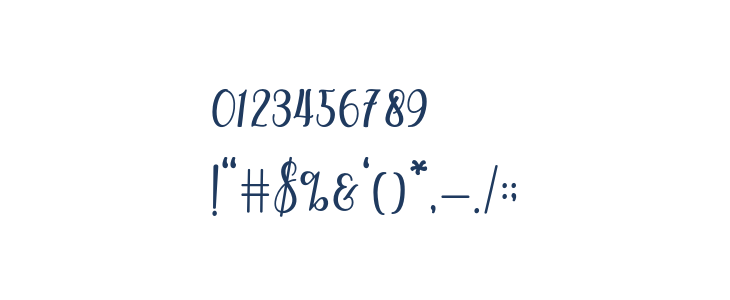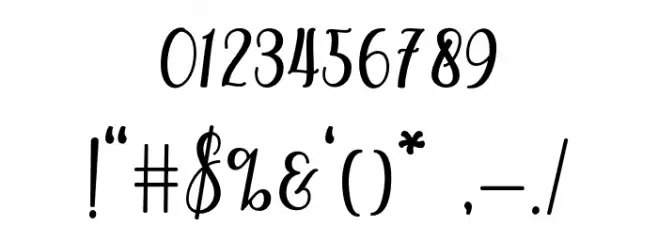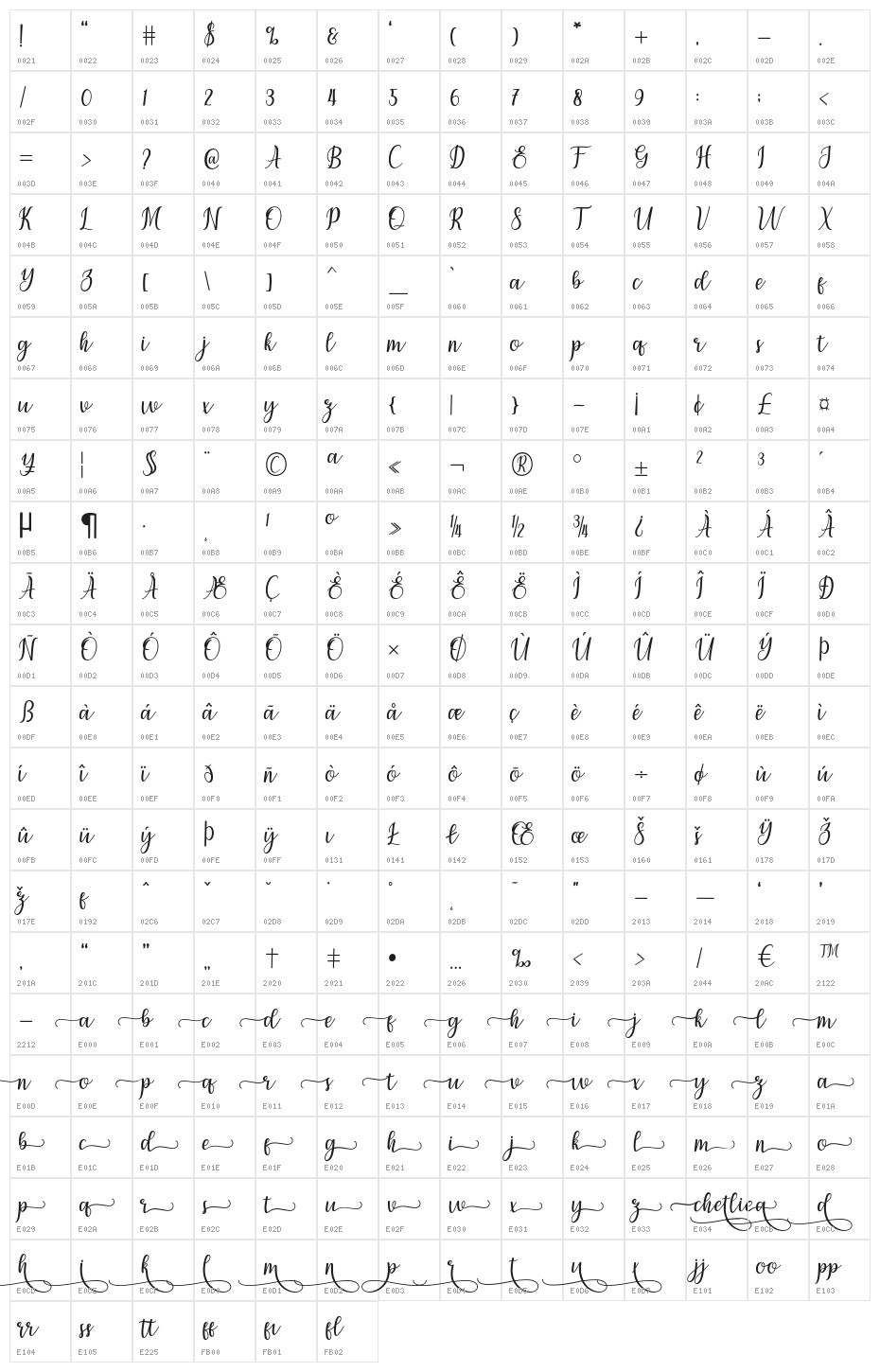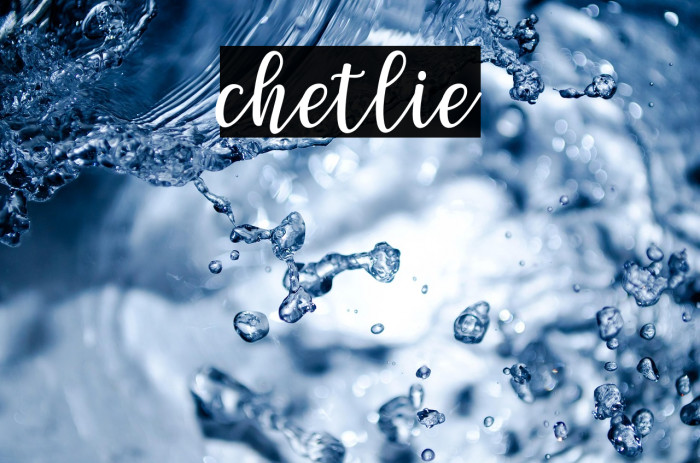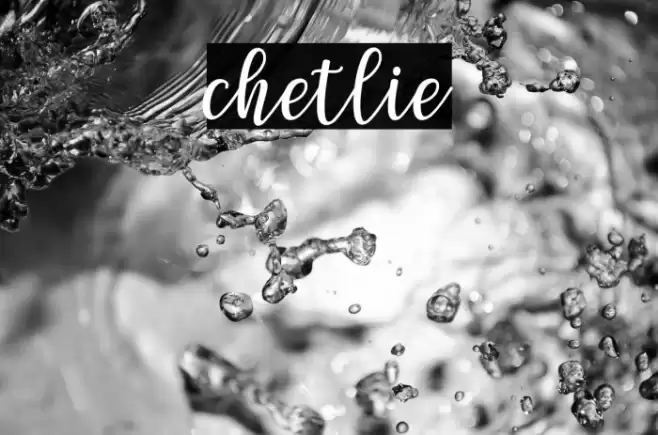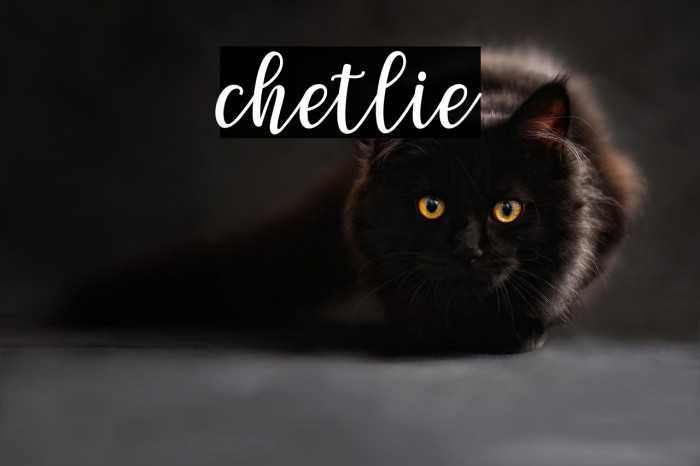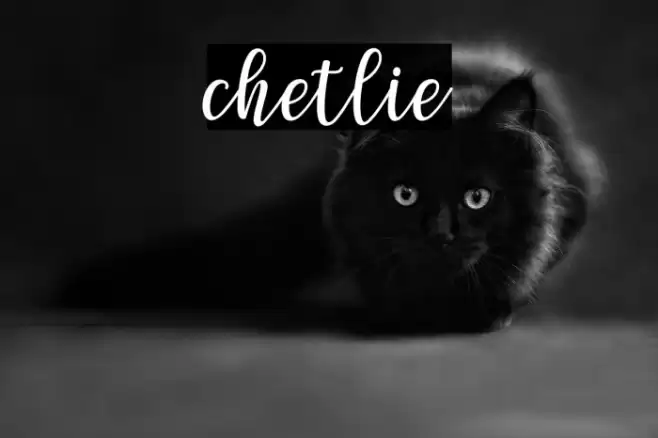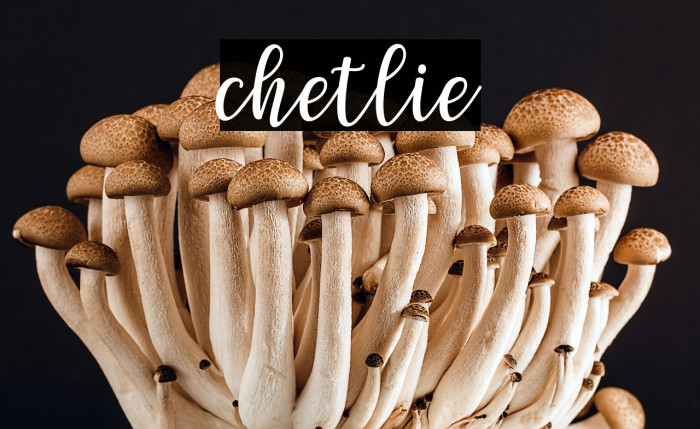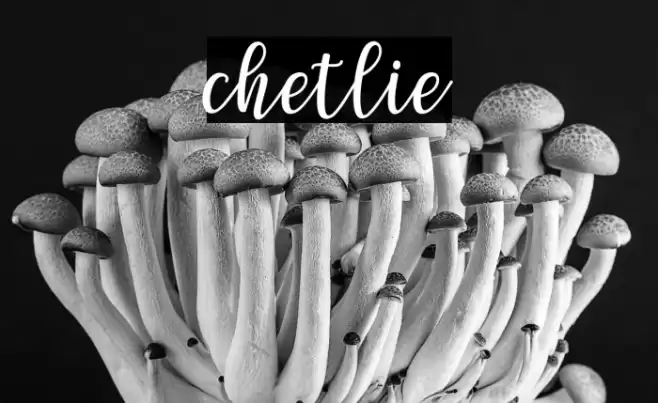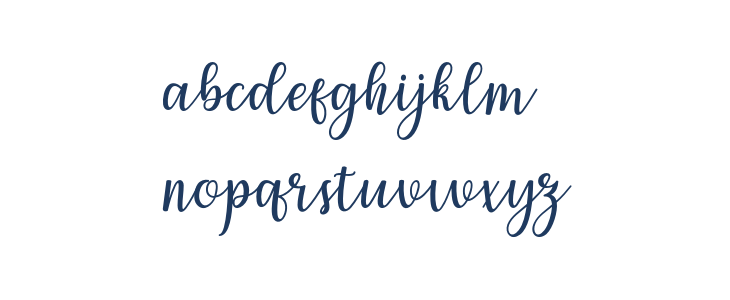
chetlie Font
chetlie Description
This font exudes a graceful and elegant script style, characterized by its flowing, cursive letterforms. The uppercase letters are tall and slightly slanted, with decorative flourishes that add a touch of sophistication. The lowercase letters maintain a consistent flow, with smooth connections between characters, enhancing the script's fluidity. The numerals are clear and legible, matching the overall aesthetic of the font. Special characters are thoughtfully designed, complementing the script style. This font is perfect for projects that require a personal and stylish touch, such as invitations, greeting cards, and branding materials.